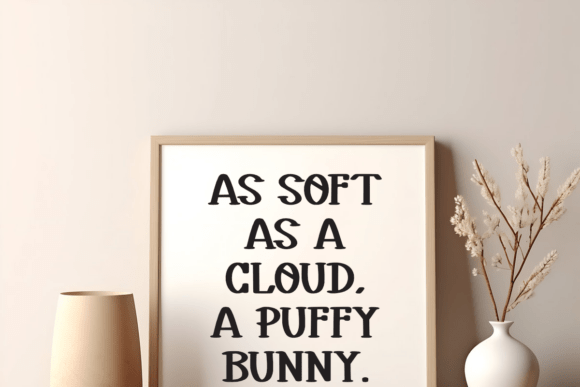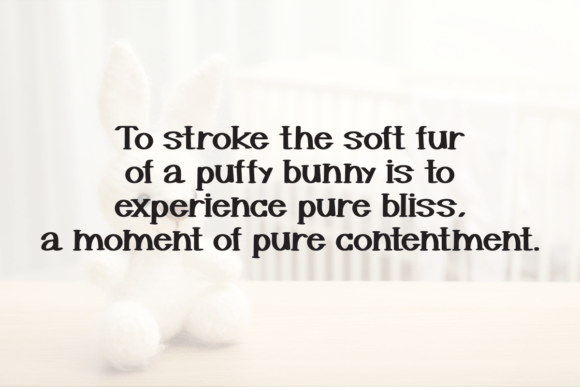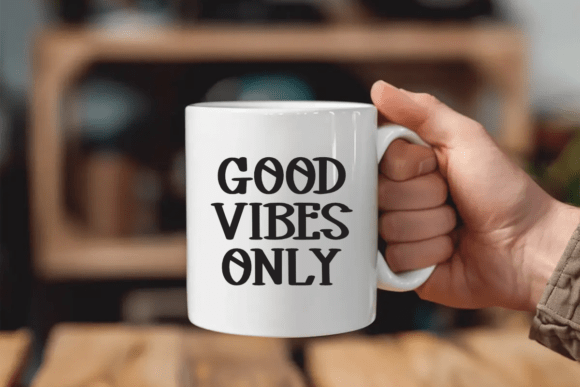
Puffy Bunny Font: A Cute Display Font for Cricut & Playful Design
About the Puffy Bunny Font
The wait is over! The incredible Puffy Bunny Font is now available for your design toolkit. Puffy Bunny is a charming playful slab serif font with soft curves and a bouncy personality. Its whimsical letterforms make it ideal for children’s products, Easter cards, logos, and anything that calls for a touch of joyful friendliness.
Puffy Bunny’s playful energy makes it perfect for branding projects targeting a young audience, children’s book illustrations, and playful packaging designs. It also works well in headlines and short bursts of text within posters or social media graphics. However, its whimsical nature makes it less suitable for body copy or UI elements requiring high readability. Avoid using it for lengthy paragraphs or applications demanding clear legibility at small sizes.
Pairing Puffy Bunny with a clean sans-serif like Open Sans for body text creates a balanced contrast, letting Puffy Bunny’s charm stand out. Alternatively, a more geometric sans-serif like Futura can provide a sophisticated counterpoint. For a more playful approach, consider pairing it with a handwritten script font, but choose one with a similar level of friendliness to avoid visual clash.
Its core personality is undeniably cheerful and friendly, making it a great choice for brands emphasizing fun, approachability, and a youthful spirit. It is best utilized in applications where this lighthearted energy can enhance the overall message.
Puffy Bunny Font Usage Examples
Puffy Bunny Font Example